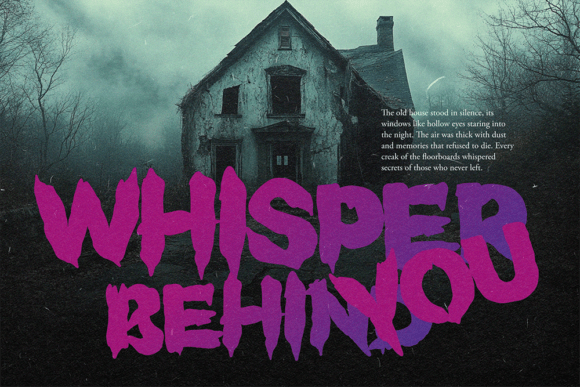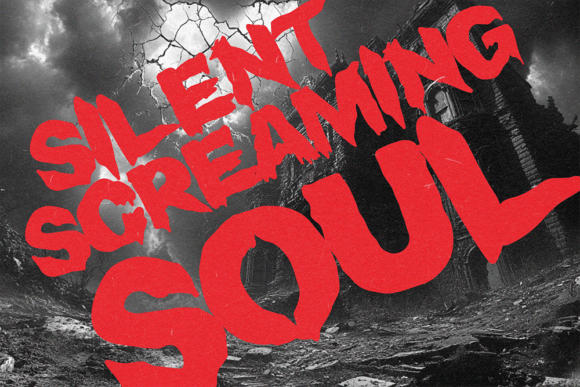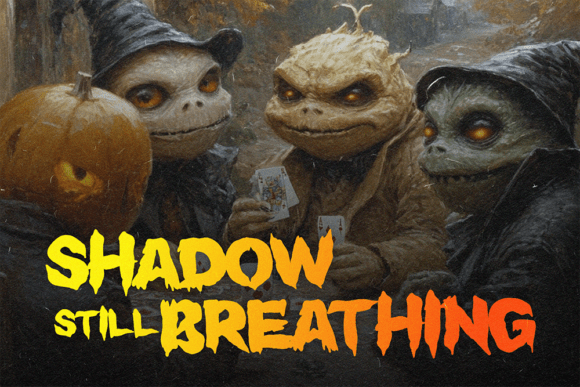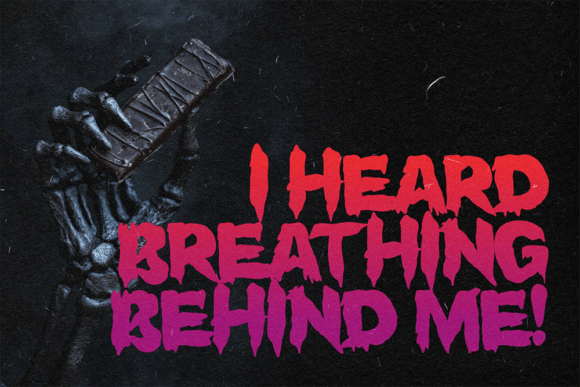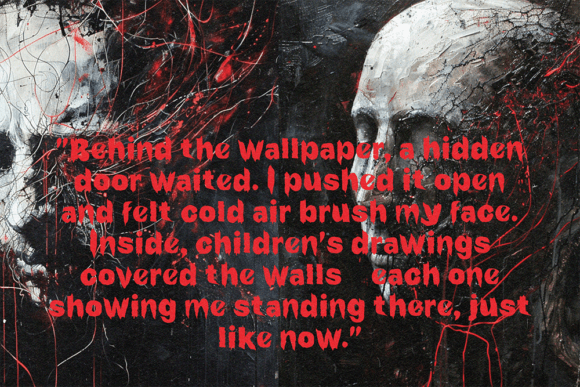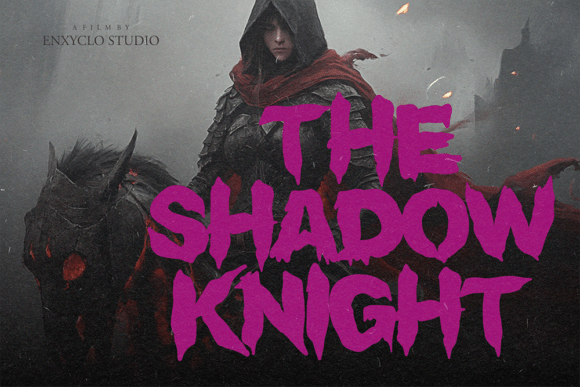
The Dark Side of Typography: Unleashing the Power of Beware Horror Font
As a designer, have you ever found yourself staring at a blank screen, searching for the perfect font to capture the essence of your project? Perhaps you’re working on a spine-tingling horror movie trailer, a haunting Halloween-themed website, or a mysterious thriller novel cover. Whatever the case, the right font can make all the difference.
Enter Beware Horror Font, a masterfully crafted typeface designed to evoke the eerie and unsettling atmosphere of classic horror. This font is not just a tool, but a key to unlocking the perfect ambiance for your next design project. With its disturbingly unique letterforms, Beware Horror Font is sure to set your work apart and leave a lasting impression on your audience.
Beware Horror Font Key Features
- Font Family: Beware Horror Font is a display font designed for horror-themed projects, with a unique and eerie feel.
- Character Count: The font includes a wide range of characters, including uppercase and lowercase letters, numbers, and punctuation marks.
- Size and Resolution: The font is designed to work at various sizes and resolutions, including small text sizes and high-resolution displays.
- Unique Characteristics: Beware Horror Font features a distressed, horror-themed design with a mix of eerie and unsettling elements, making it perfect for horror-themed projects.
Beware Horror Font Review
I must say, I was quite intrigued by the concept of the Beware Horror Font. The font itself is a real showstopper, with its bold and eerie aesthetic that’s sure to grab attention. ✨ The designer’s use of distressed textures and creepy characters adds a level of depth and atmosphere that’s hard to find in other fonts.
One of the things I appreciate most about Beware Horror Font is its versatility. ✨ It can be used for a wide range of projects, from horror movie posters to spooky decorations, and even for a touch of edginess in fashion branding. The font’s bold and eye-catching design makes it perfect for getting your message across.
- ⚠️ Limited character set: The font only includes a limited number of characters, which may make it difficult to use for longer texts or more complex projects.
- ⚠️ Not suitable for all audiences: The font’s horror theme may not be suitable for all audiences, especially children or those who are easily disturbed.
Overall, I’d say Beware Horror Font is a solid choice for anyone looking to add a touch of eeriness to their design. While it has some limitations, its unique design and versatility make it a great addition to any designer’s toolkit.
Beware Horror Font is perfect for creating spooky Halloween decorations, haunted house invitations, or eerie movie posters. It can also be used for creating a creepy atmosphere in horror-themed presentations or documents.
To get the most out of Beware Horror Font, experiment with different text styles, sizes, and colors to create a unique and spooky effect. You can also combine it with other fonts and design elements to achieve a more dramatic look.